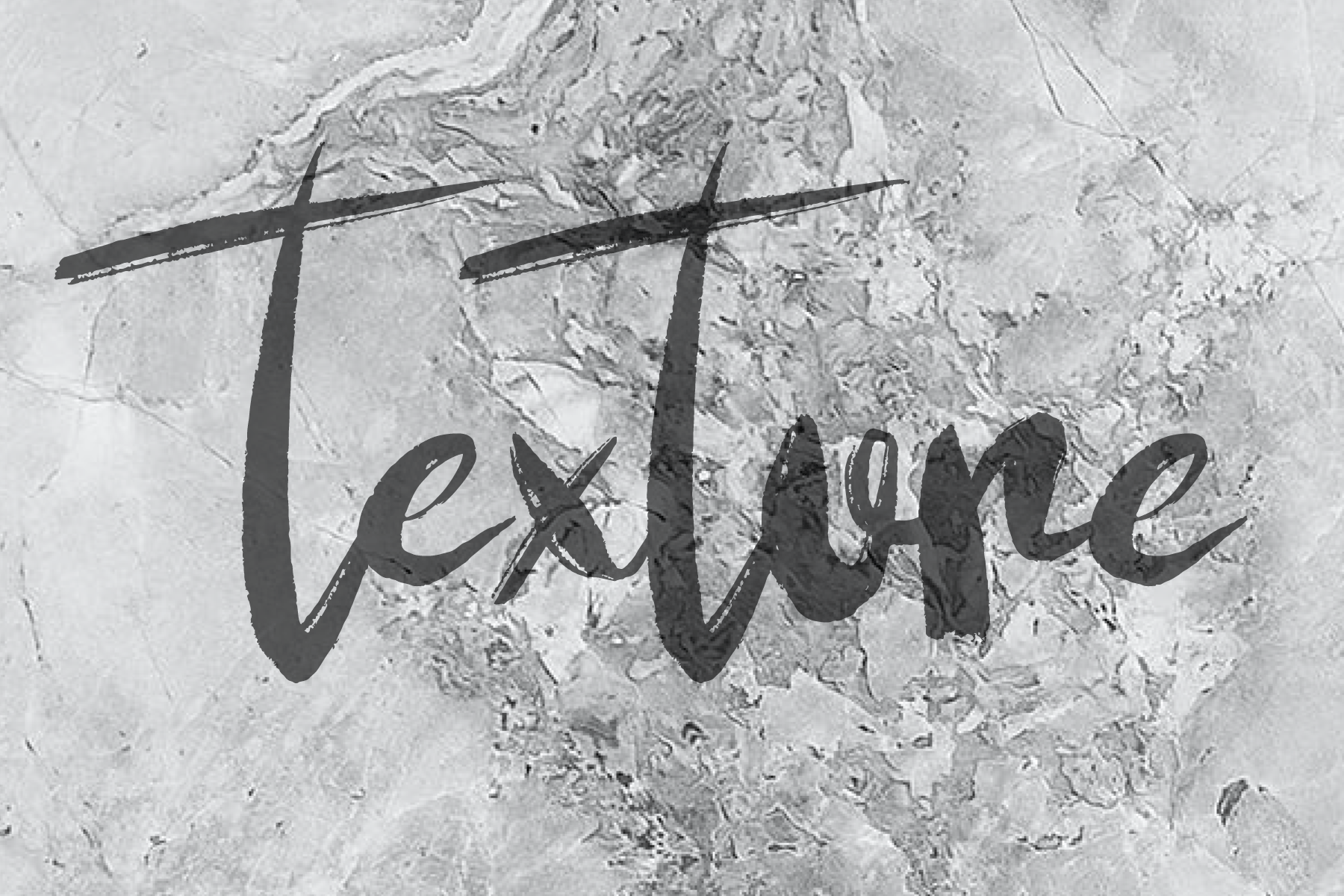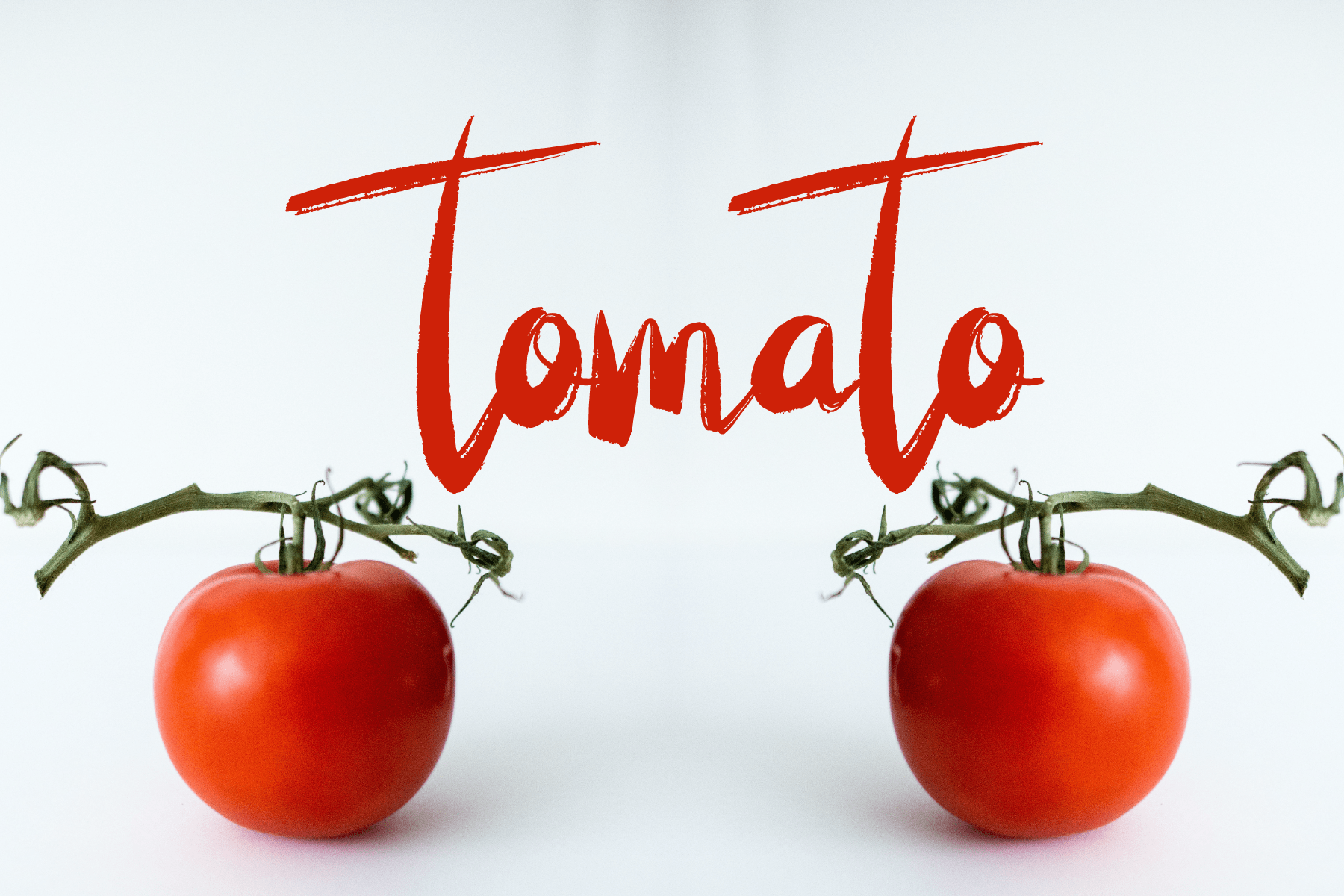
Nice Meet Script Font
This is a chic and trendy handwritten font. It has a modern yet whimsical style and it will undoubtedly immerse your designs into a magical world.